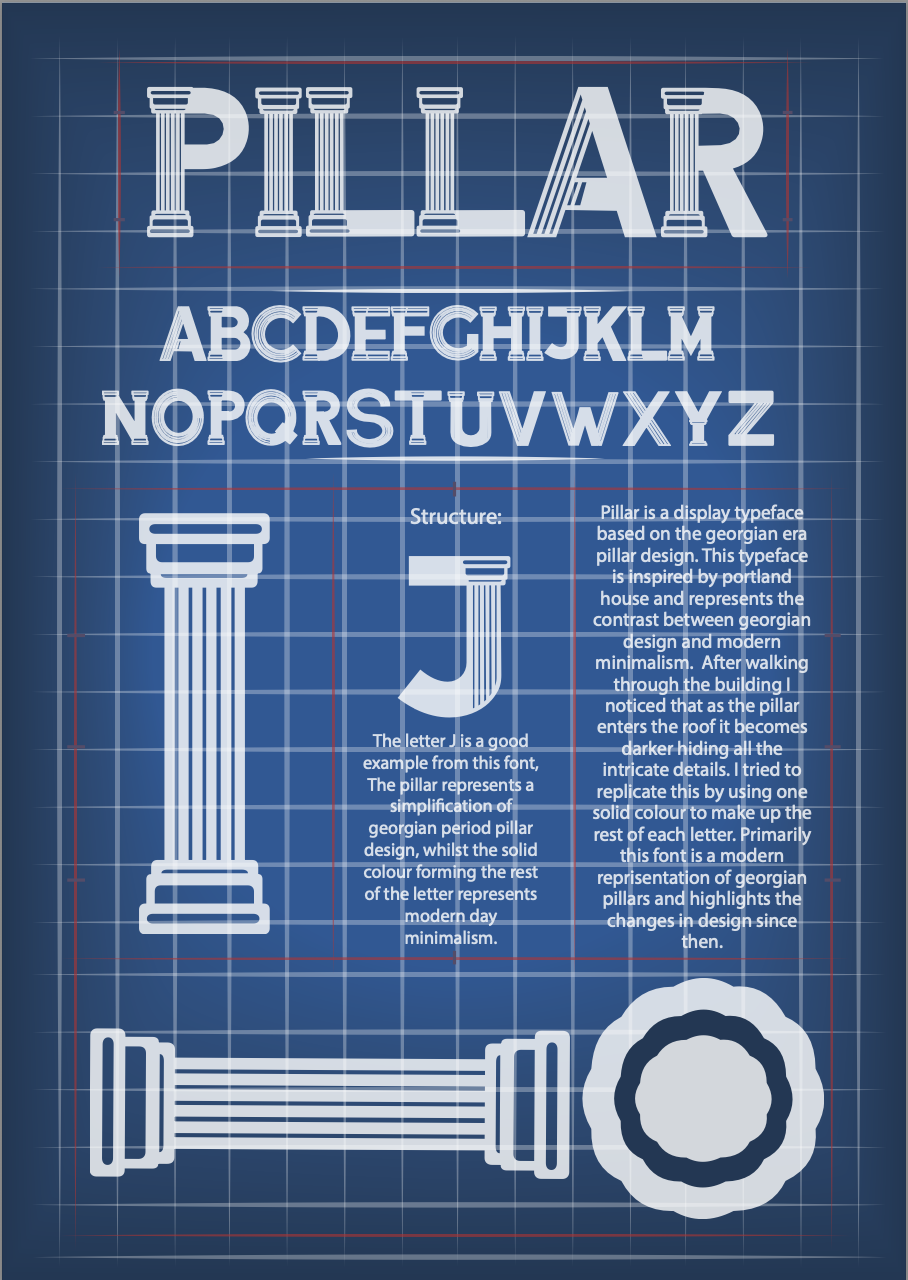
Pillar is a display typeface based on the georgian era pillar design. This typeface is inspired by portland house and represents the contrast between georgian design and modern minimalism. After walking through the building I noticed that as the pillar enters the roof it becomes darker hiding all the intricate details. I tried to replicate this by using one solid colour to make up the rest of each letter. Primarily this font is a modern reprisentation of georgian pillars and highlights the changes in design since then.